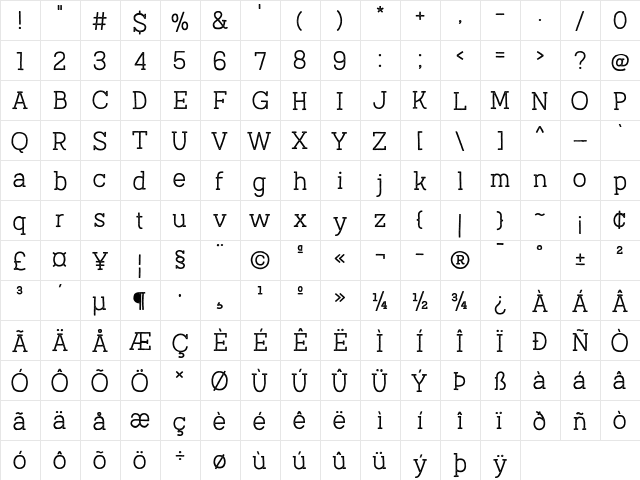
Austral Slab Stamp Light
Design Context for Austral Slab Typeface
Austral Slab has the rough pragmatism of spray-painted stencil signage, adding a raw, street-level authenticity to designs. The delicate stroke weight brings airiness and refinement to layouts.
Ideal for industrial branding, streetwear, military-adjacent aesthetics, and urban signage projects.
Pro Tip: Pair Austral Slab with raw, utilitarian design elements — exposed concrete textures, flat colour, and minimal ornamentation suit it well.